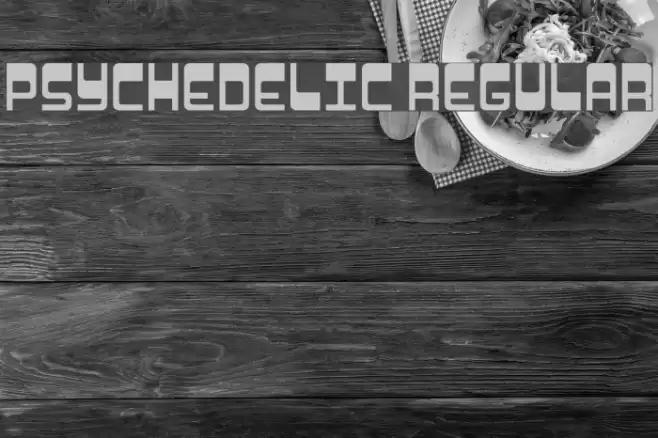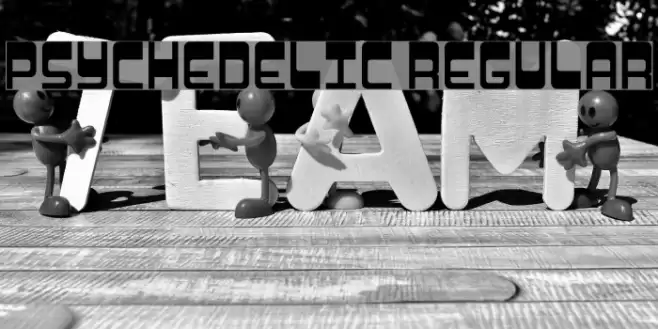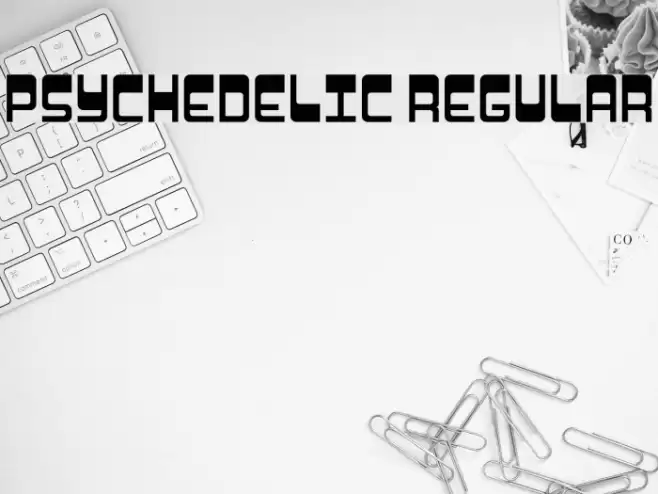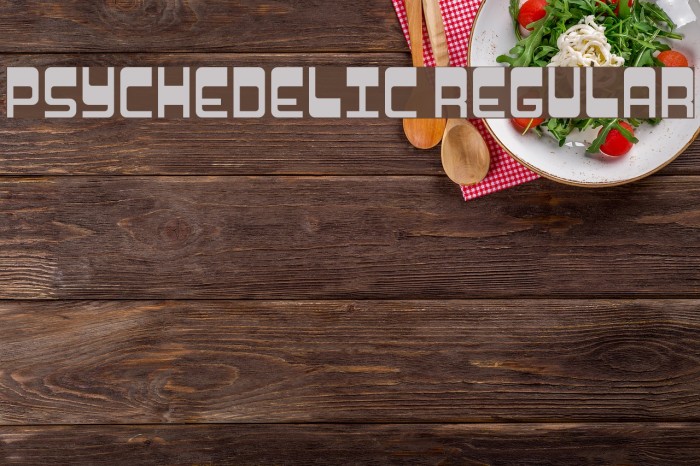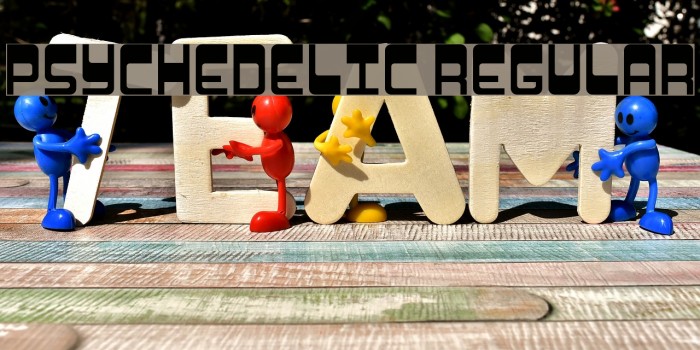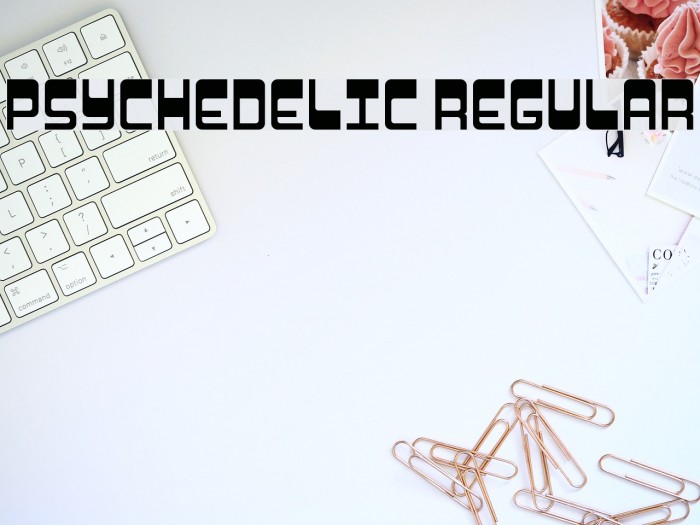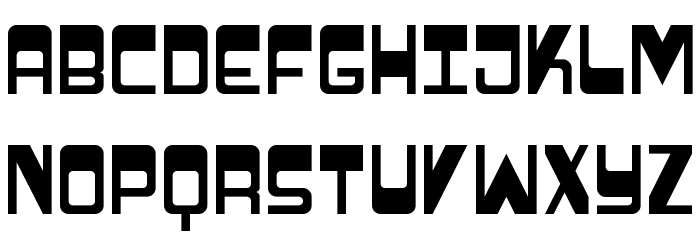
Psychedelic Regular Font
Psychedelic Regular Description
This font features a bold and geometric design with a distinctly modern and futuristic aesthetic. The characters are constructed with sharp angles and clean lines, giving them a strong and impactful presence. The uppercase letters are uniform in height, while the lowercase letters maintain a consistent style, enhancing readability. The numbers and special characters are designed to match the overall geometric theme, making them suitable for a variety of design applications. The font's unique style makes it ideal for projects that require a contemporary and edgy look.
A bold, geometric font with a modern and futuristic style from Fancy fonts.
- Proposed Projects: Ideal for branding, posters, album covers, and digital media projects that require a modern and edgy aesthetic.